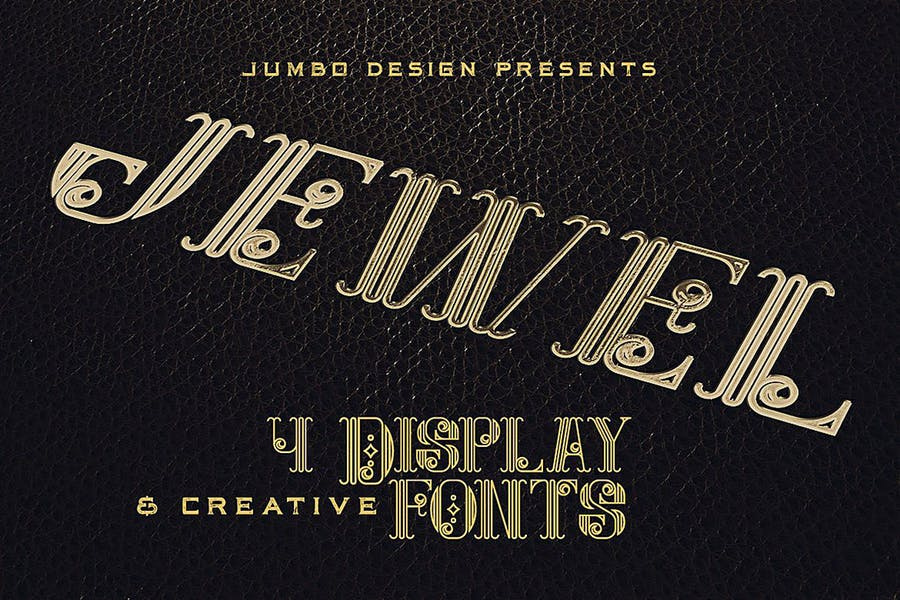
Jewel - Display Font
Jewel - Display Font is perfect for luxury jewelry branding, premium fashion magazines, high-end cosmetics packaging, exclusive boutique signage, upscale wedding invitations, elegant perfume labels, sophisticated wine collections, luxury hotel communications, fine dining restaurant materials, and prestigious award ceremonies.
Jewel - Display Font creates excitement because it embodies the brilliance and refinement of precious gemstones with its sparkling character design and luxurious aesthetic appeal. The font's faceted letterforms and crystalline precision instantly convey opulence and exclusivity, making any brand appear prestigious and valuable. Its carefully crafted details and brilliant visual impact create an immediate sense of luxury that captivates audiences seeking premium experiences and high-end products that reflect their sophisticated taste and discerning lifestyle choices.
The Jewel - Display Font family includes multiple weights and styles: Regular, Bold, Light, Medium, Italic, Condensed, Extended, Sparkle, Shadow, and Crystalline versions. Each variant maintains the font's precious gemstone character while offering different levels of brilliance and visual intensity for various luxury and high-end applications.